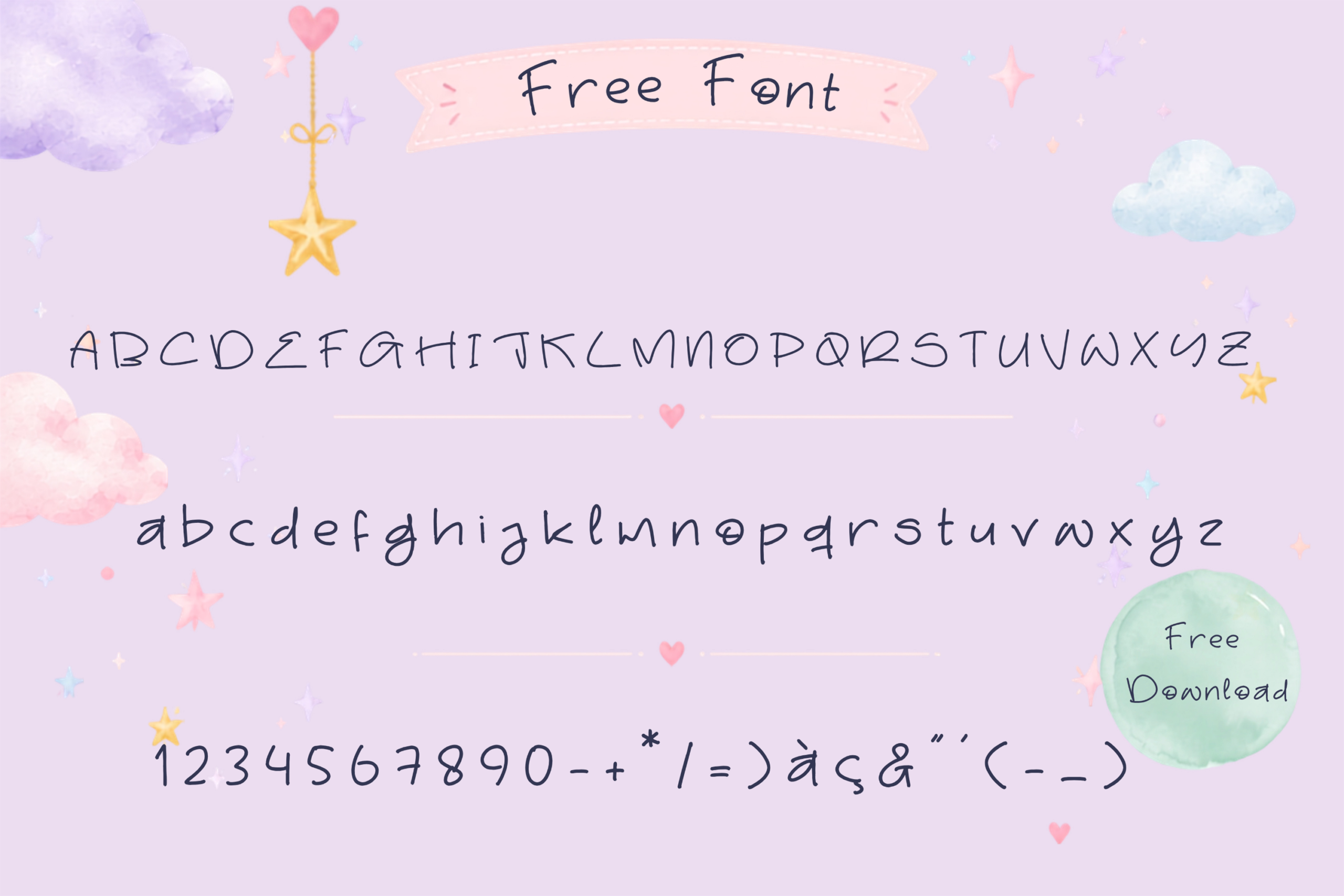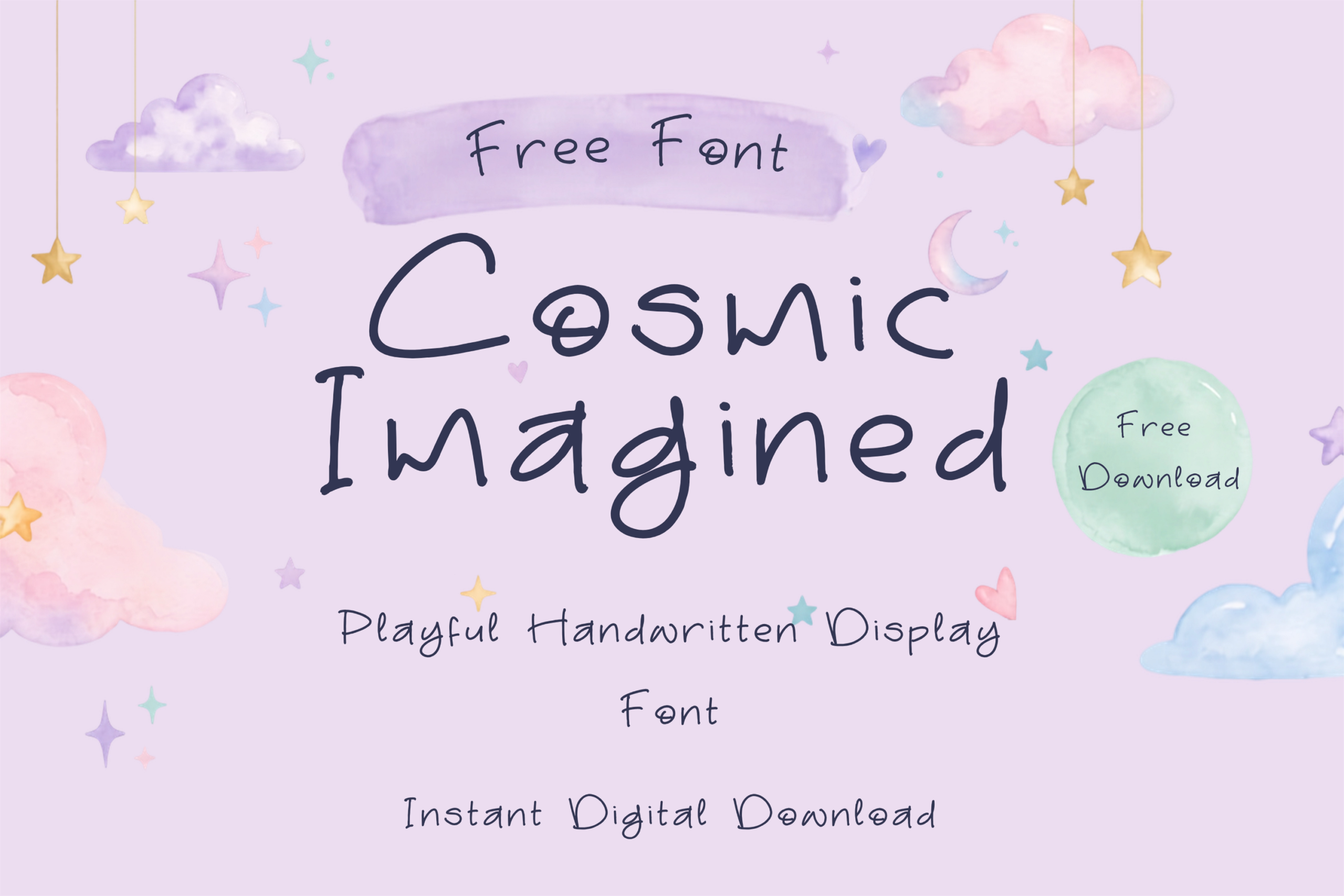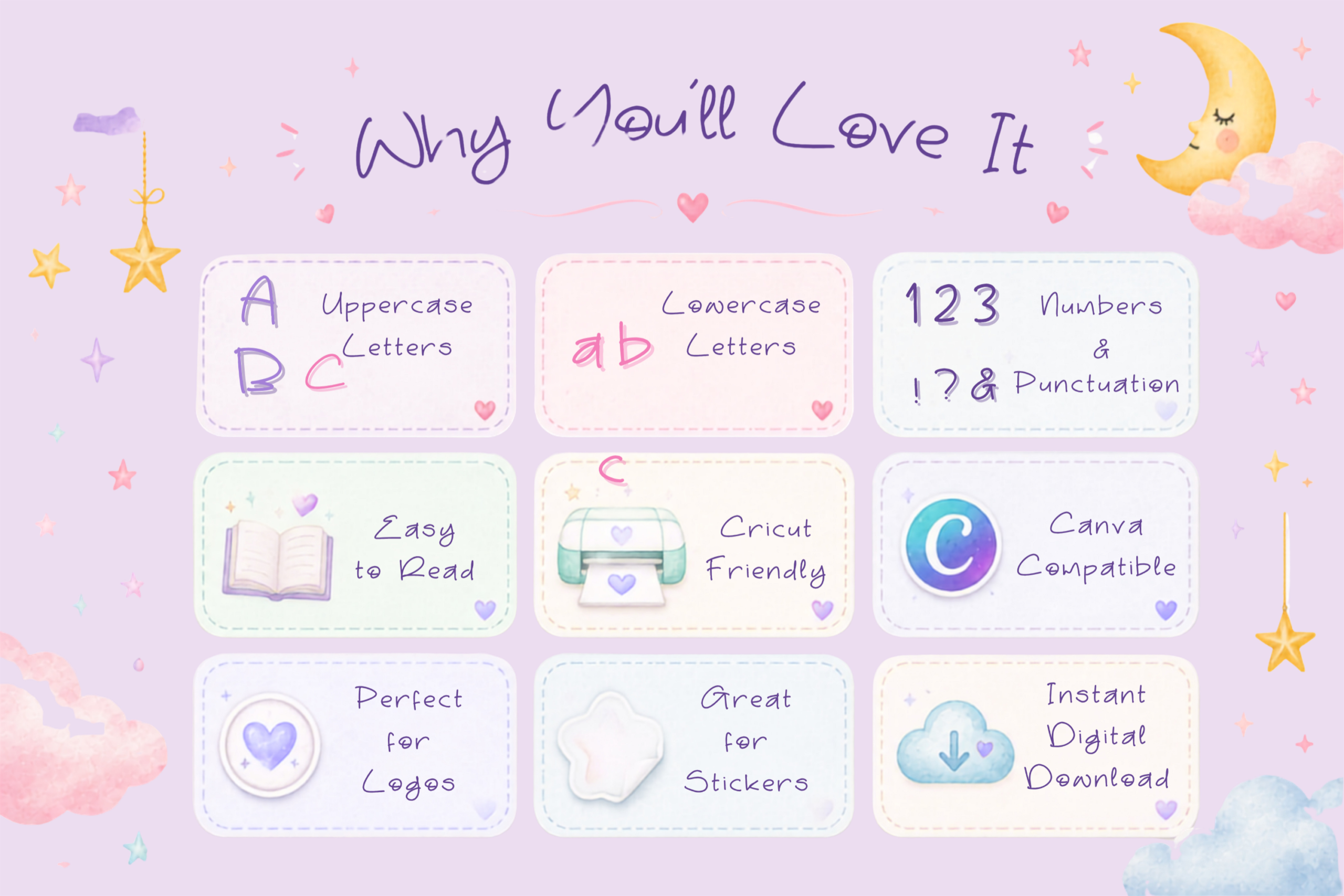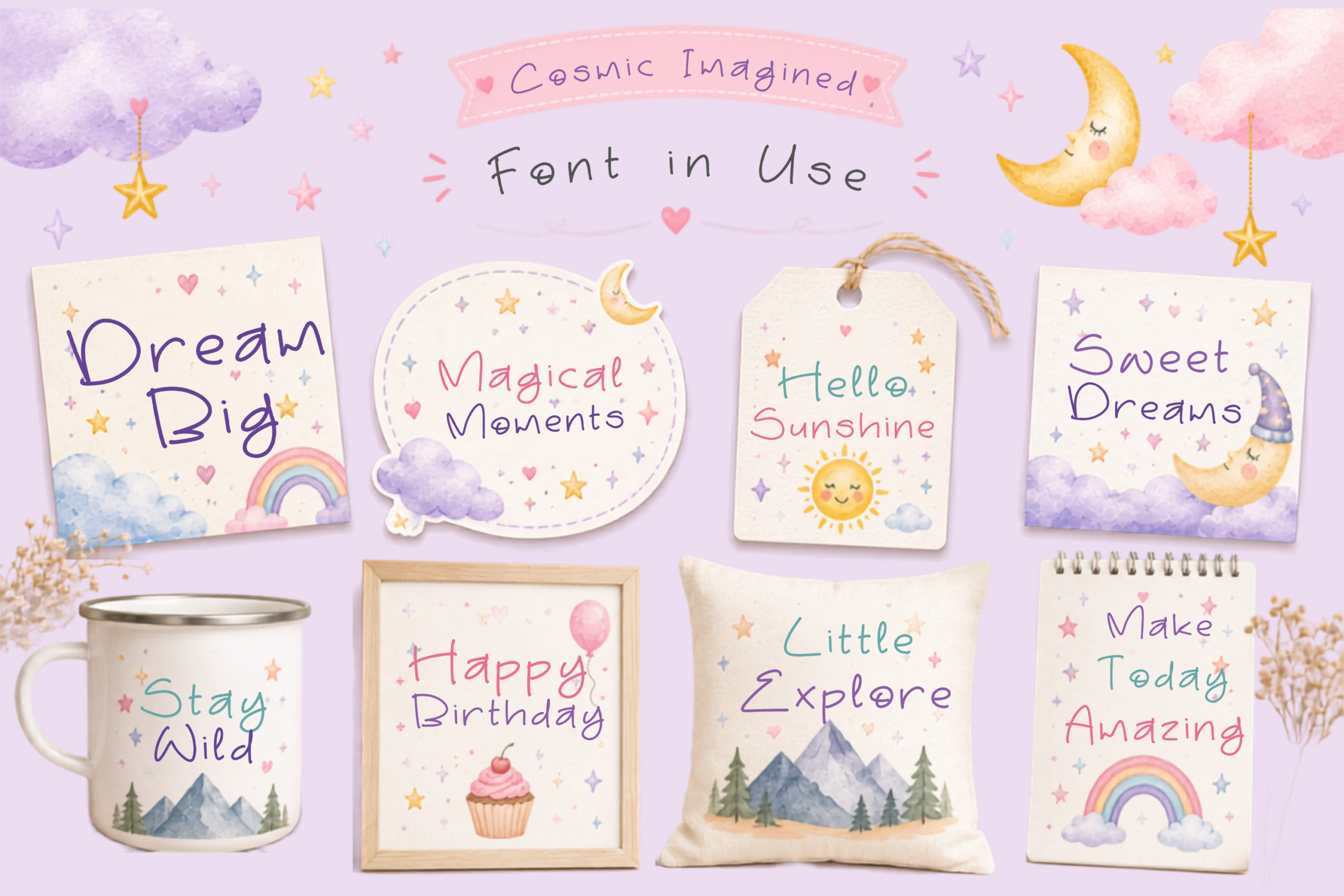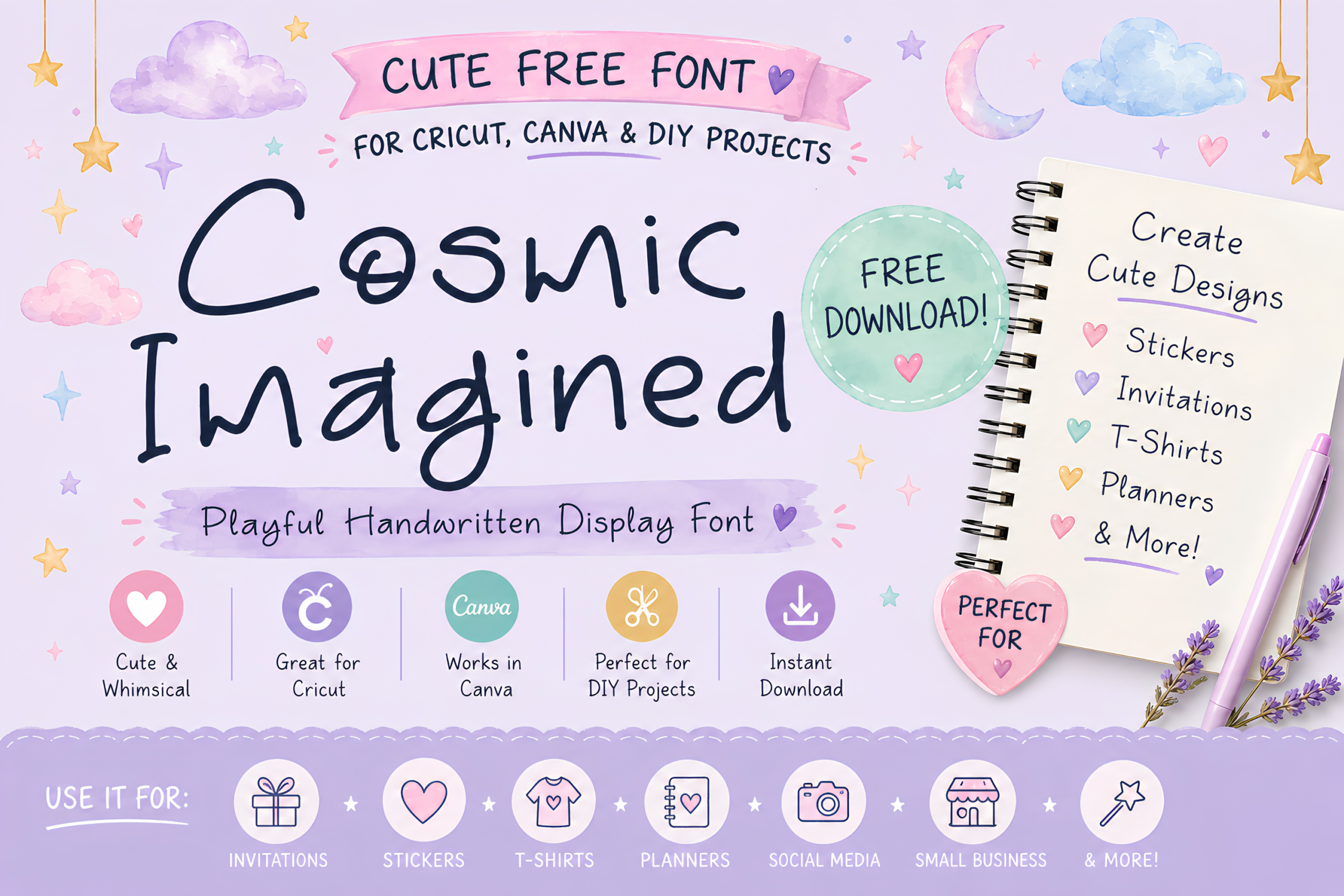
Cosmic Imaginedfont
Cosmic Imagined – Modern Signature Script Font
Cosmic Imagined is a modern signature script font designed to bring elegance and personality to your creative projects. Available in Regular and Italic styles, it includes beautiful ligatures, alternate characters, and decorative swashes for creating natural, handwritten typography.
Perfect for logos, branding, product packaging, invitations, business cards, wedding stationery, social media graphics, posters, book covers, t-shirts, stickers, mugs, printable art, Cricut projects, and more.
• Ligatures, alternates, and swashes
• Modern handwritten signature style
• Supports over 65 languages
Whether you’re creating luxury branding, personalized gifts, or digital products, Cosmic Imagined adds a stylish, professional finish to every design.